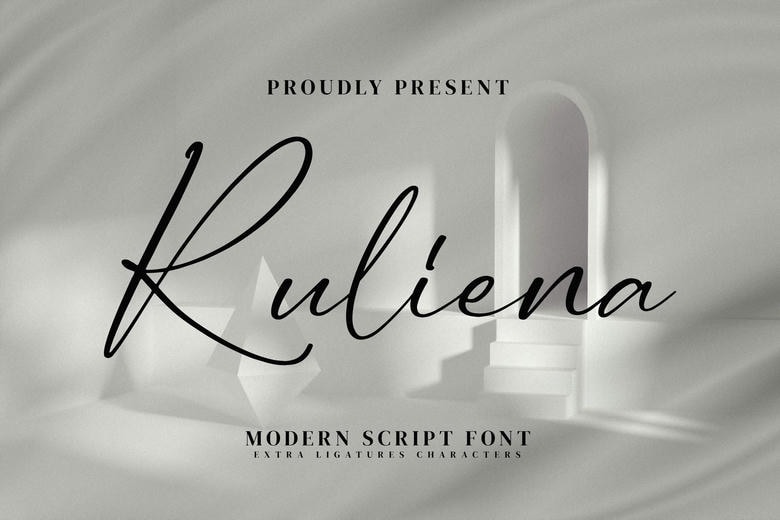
Ruliena Font
Ruliena is a fancy font that contributed a luxurious feel as a letter writing calligraphy for the focal item. The font could be used in project ideas such as the crafting of commercial items, event invitation, posters and anything else that will need an original genuine look.
Ruliena Handwritten Script Font